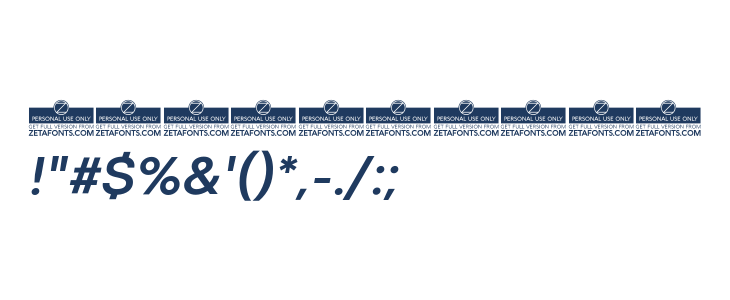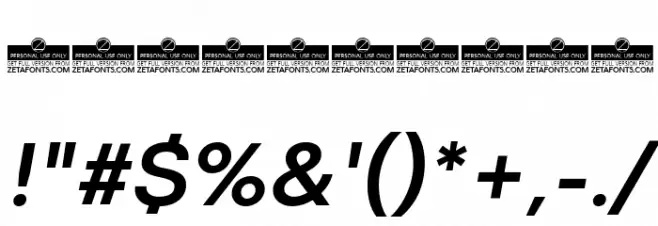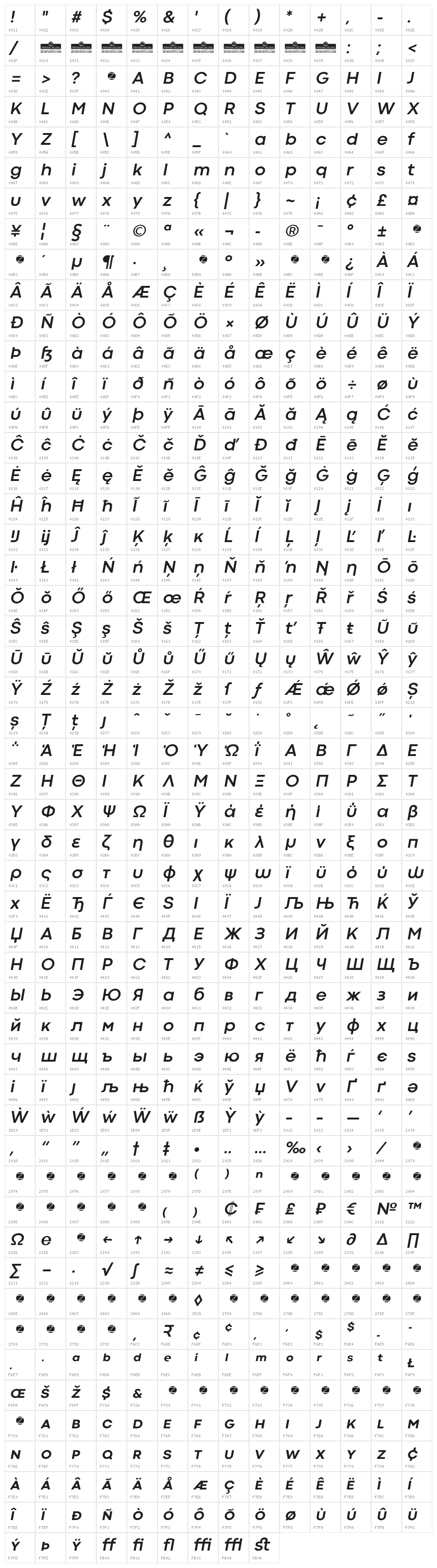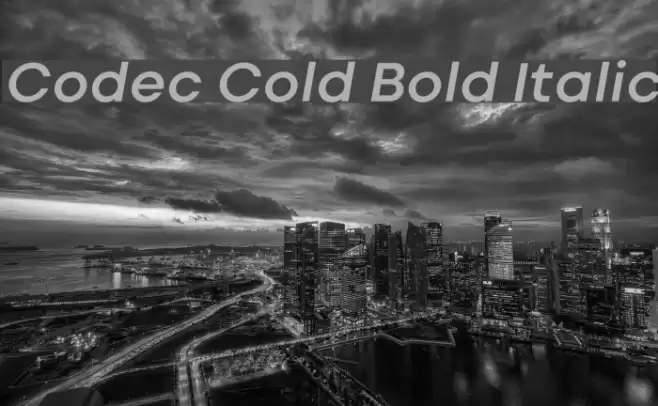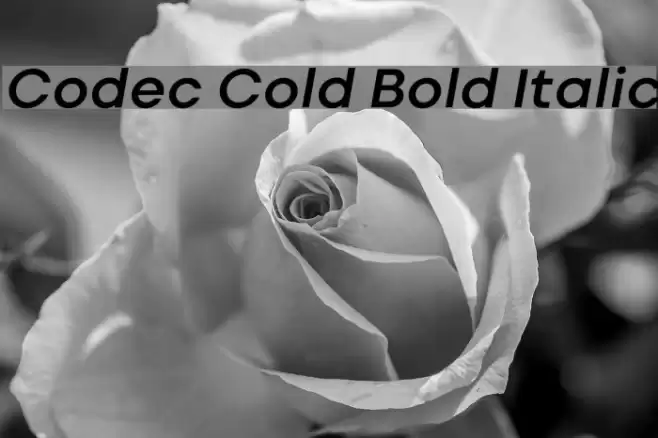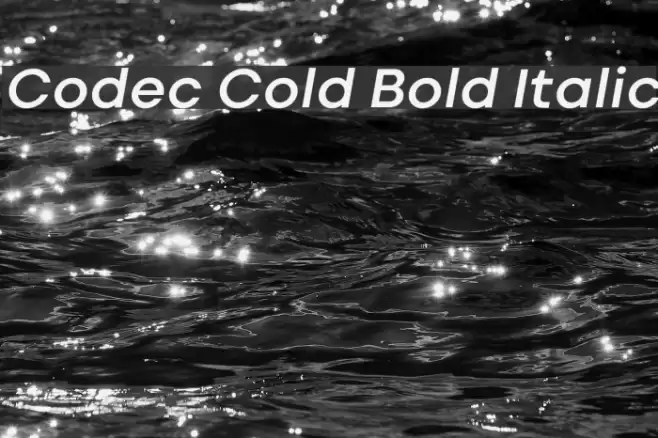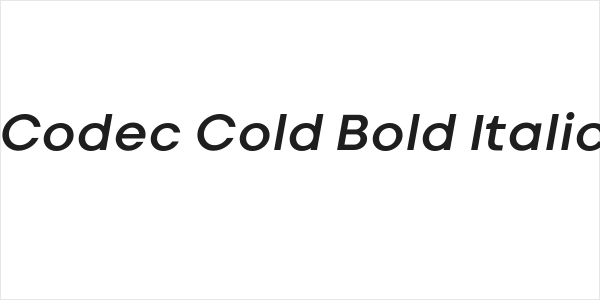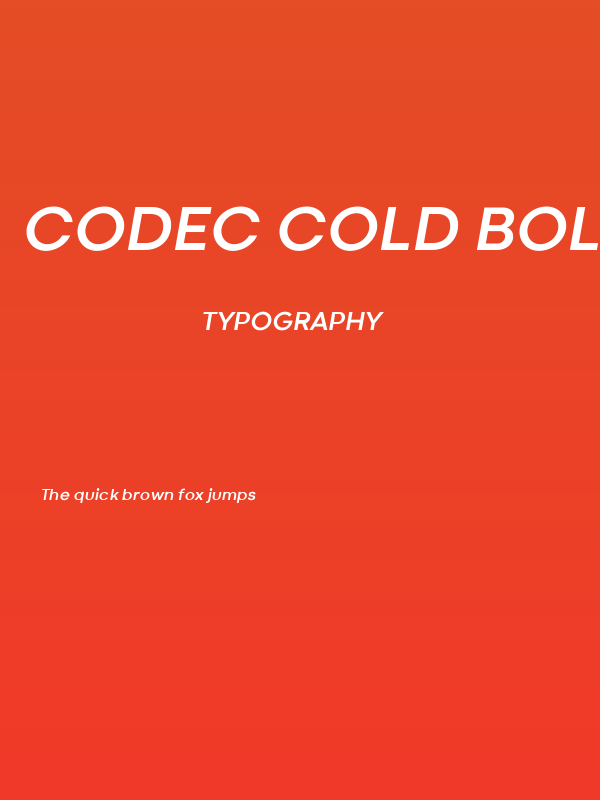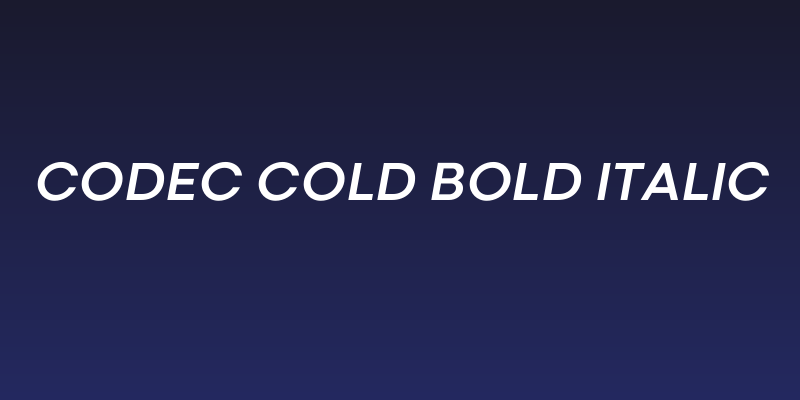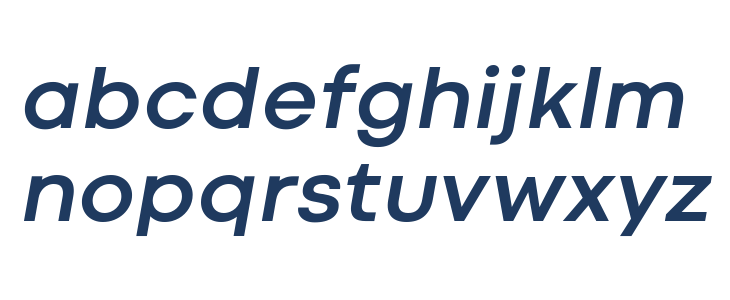
Codec Cold Bold Italic Font
Codec Cold Bold Italic Description
This font exhibits a modern and sleek design with a bold and italicized style. The characters are slightly slanted, giving a dynamic and forward-moving appearance. The strokes are consistent and bold, providing a strong visual impact. The uppercase and lowercase letters maintain a uniform width, contributing to a cohesive look. The numerals and special characters are designed to match the overall aesthetic, ensuring versatility across various applications. The font's clean lines and contemporary feel make it suitable for a range of design projects.
| Proposed Projects | Ideal for branding, advertising, headlines, and digital media projects that require a modern and impactful typeface. |